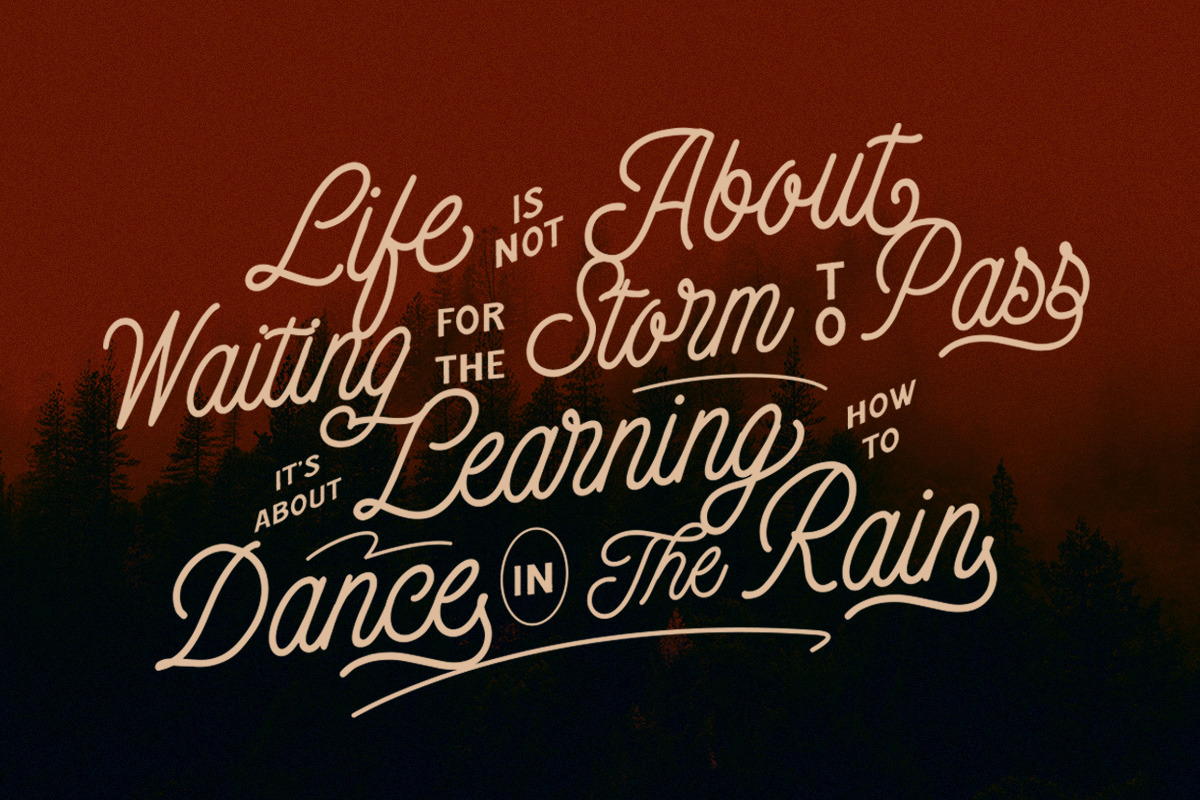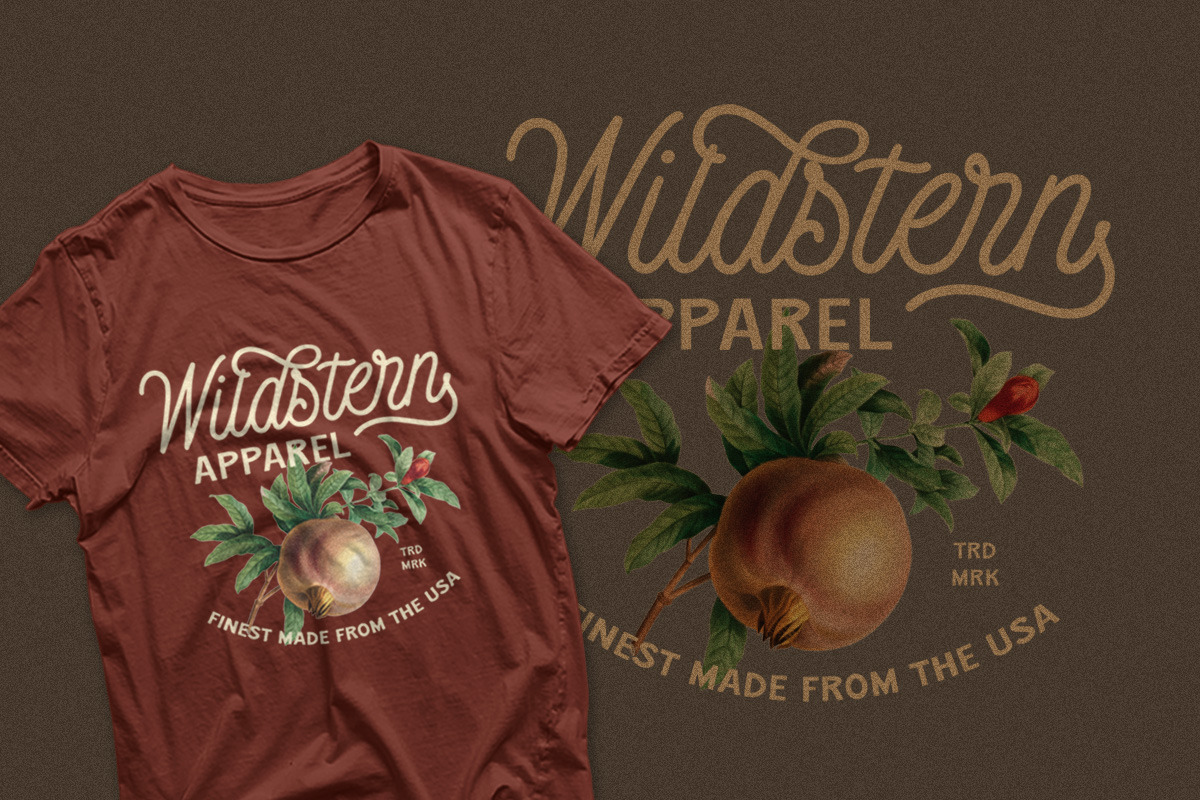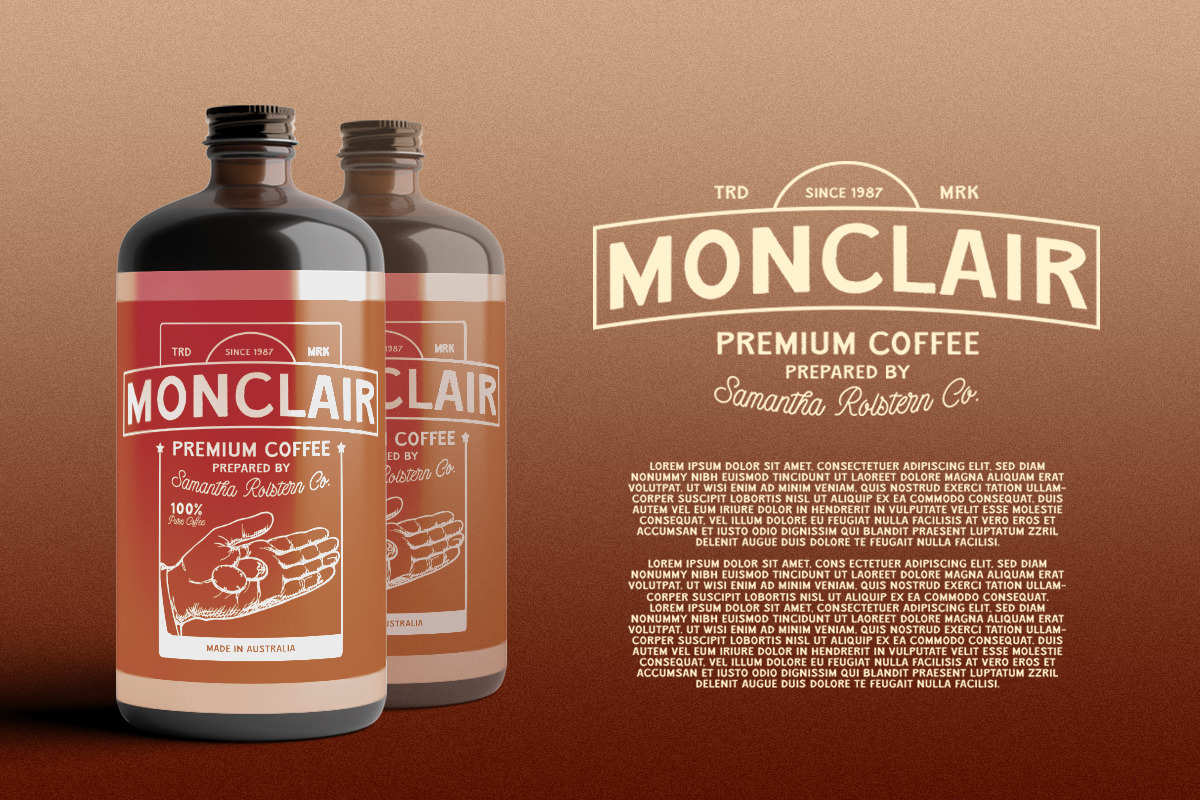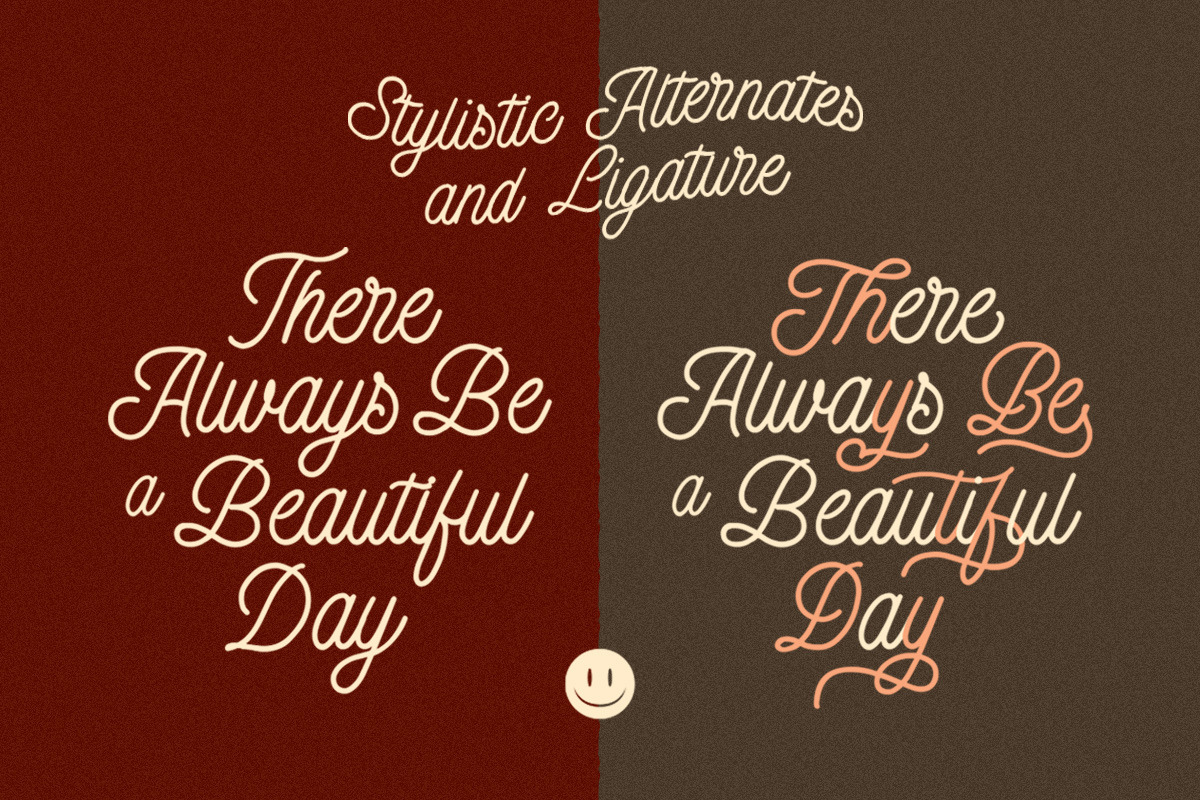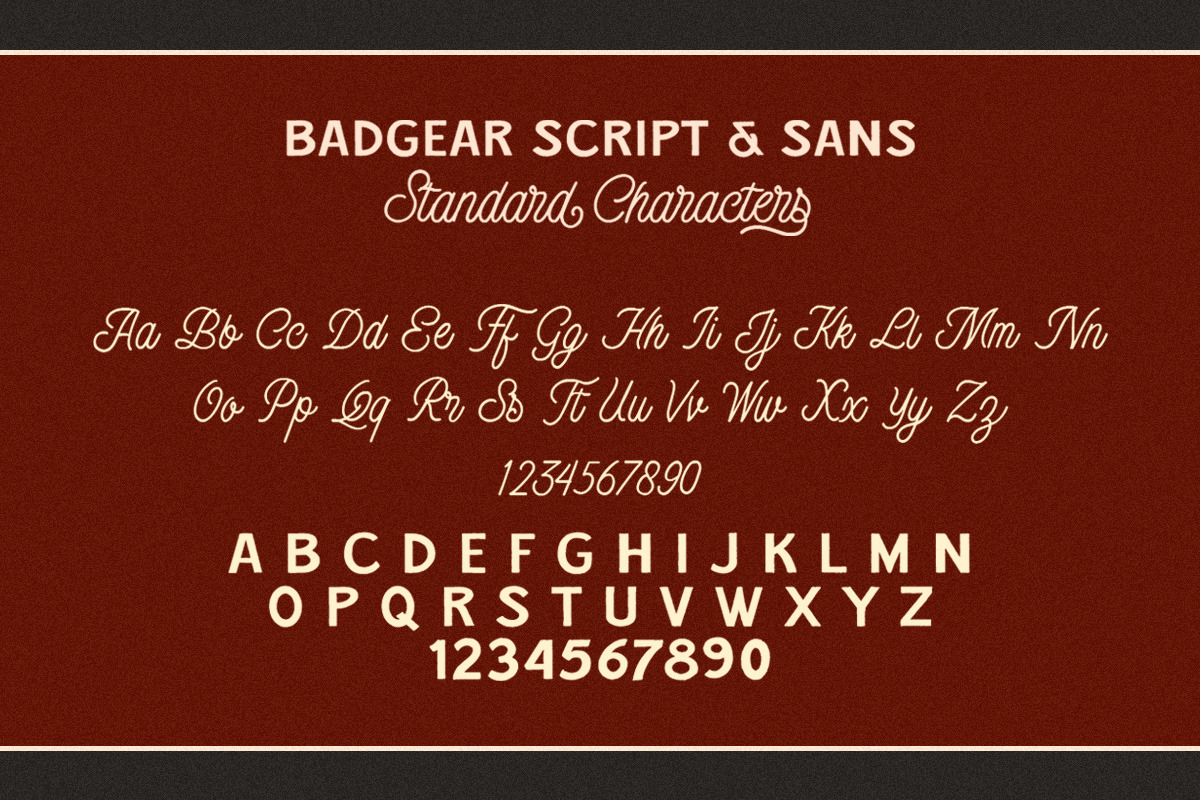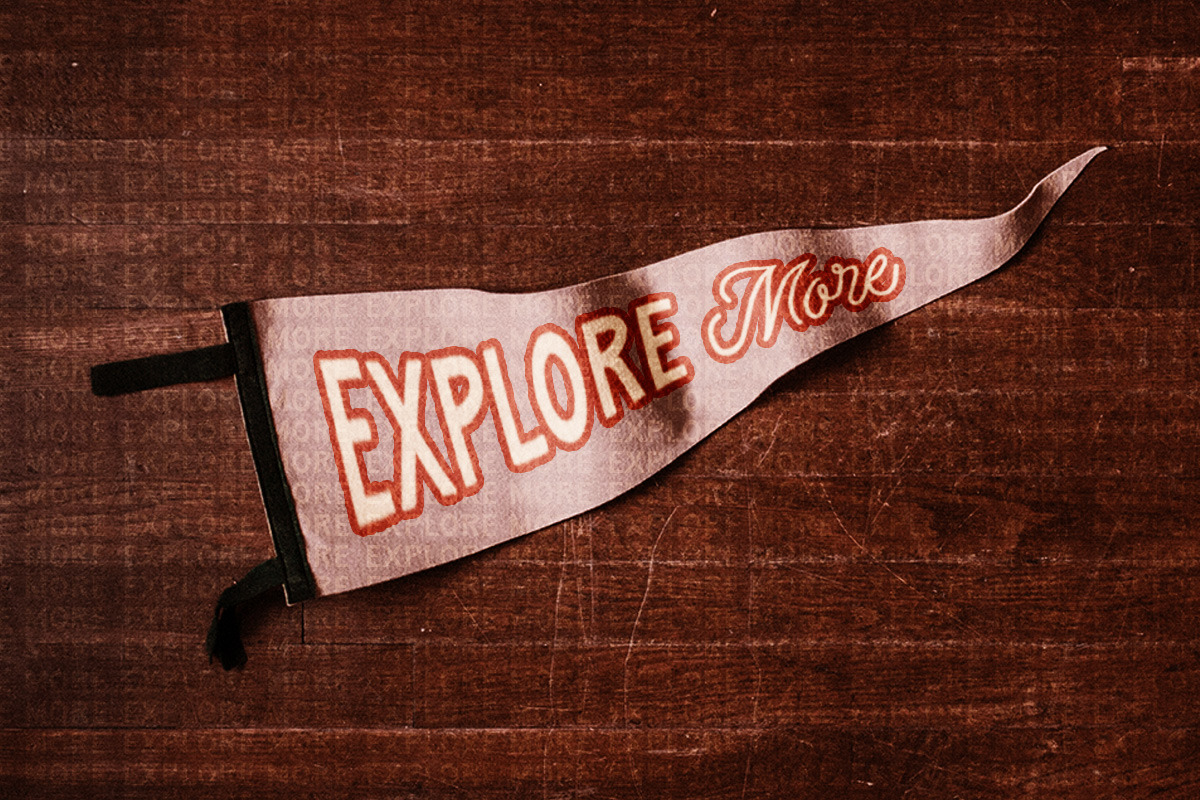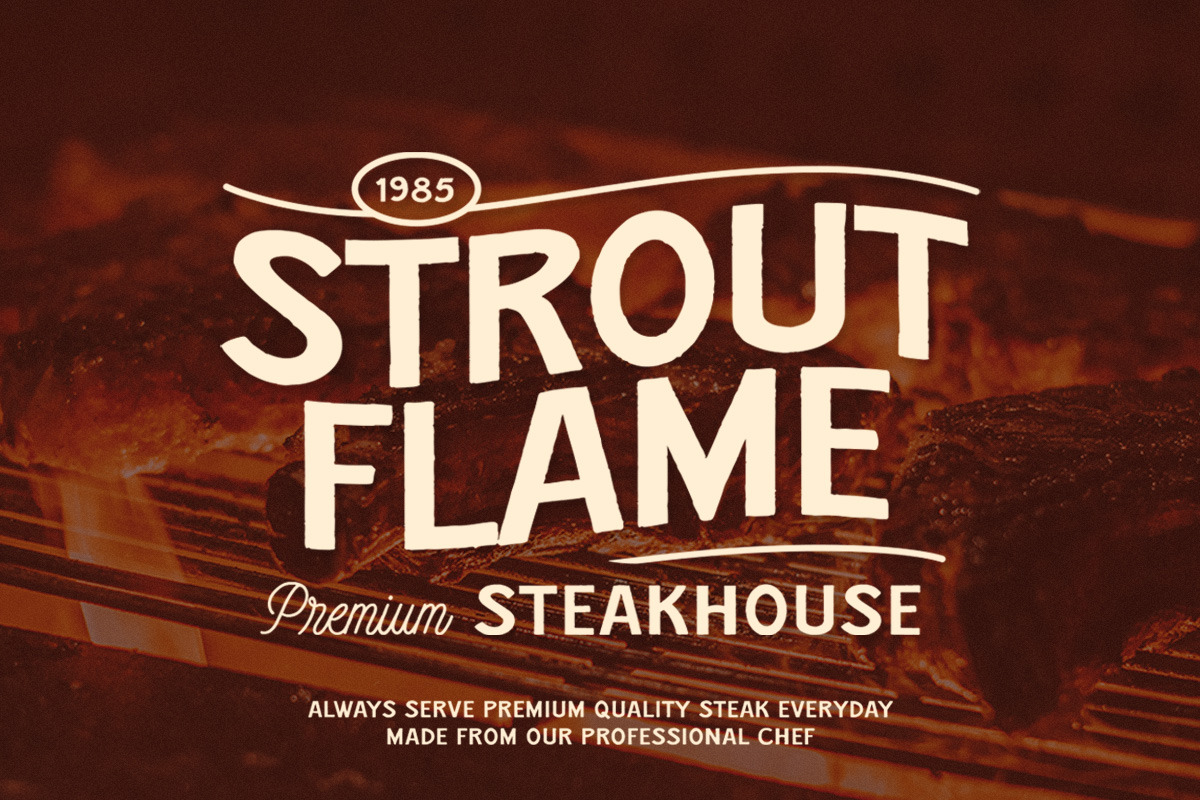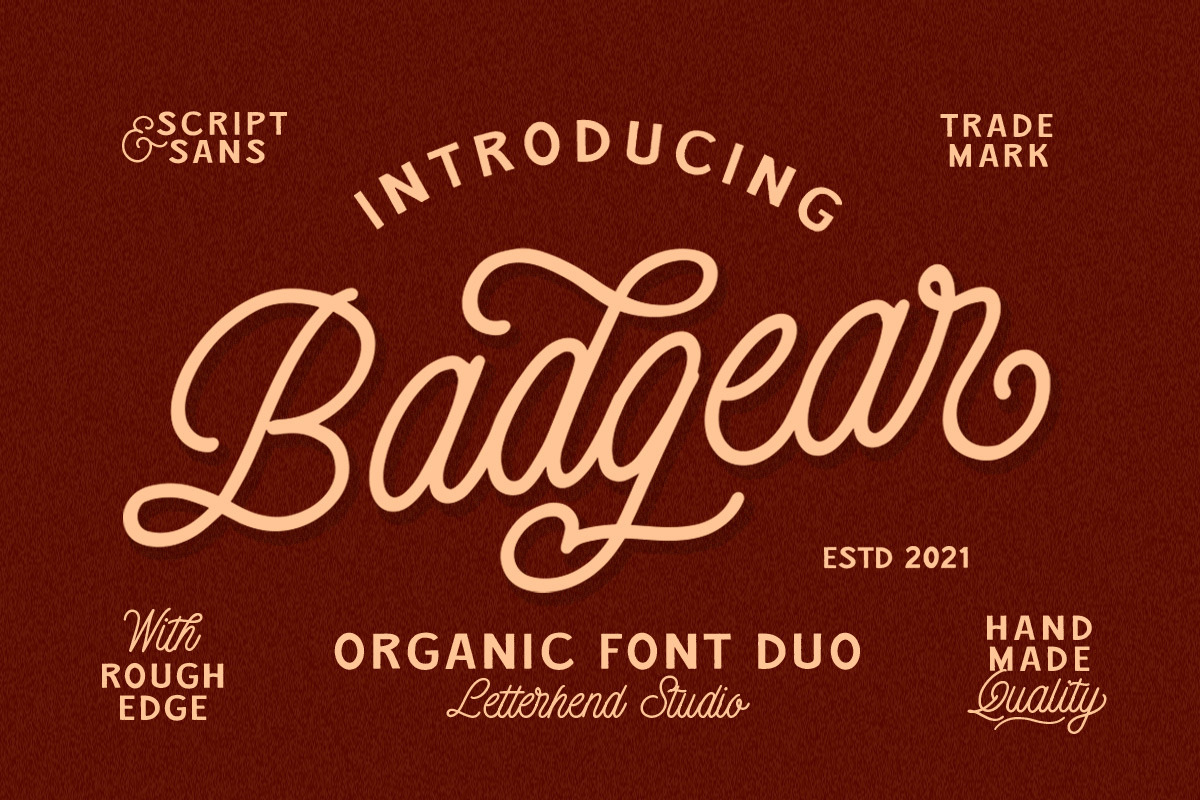
Badgear - Organic Font Duo
Badgear is an organic font duo consist of a bold monoline script paired with a sans serif with a touch of vintage look and feel. This type of font perfectly made to be applied especially in logo, headline, signage and the other various formal forms such as invitations, labels, logos, magazines, books, greeting / wedding cards, packaging, fashion, make up, stationery, novels, labels or any type of advertising purpose.
- Badgear script and sans serif
- alternates / swashes and ligatures